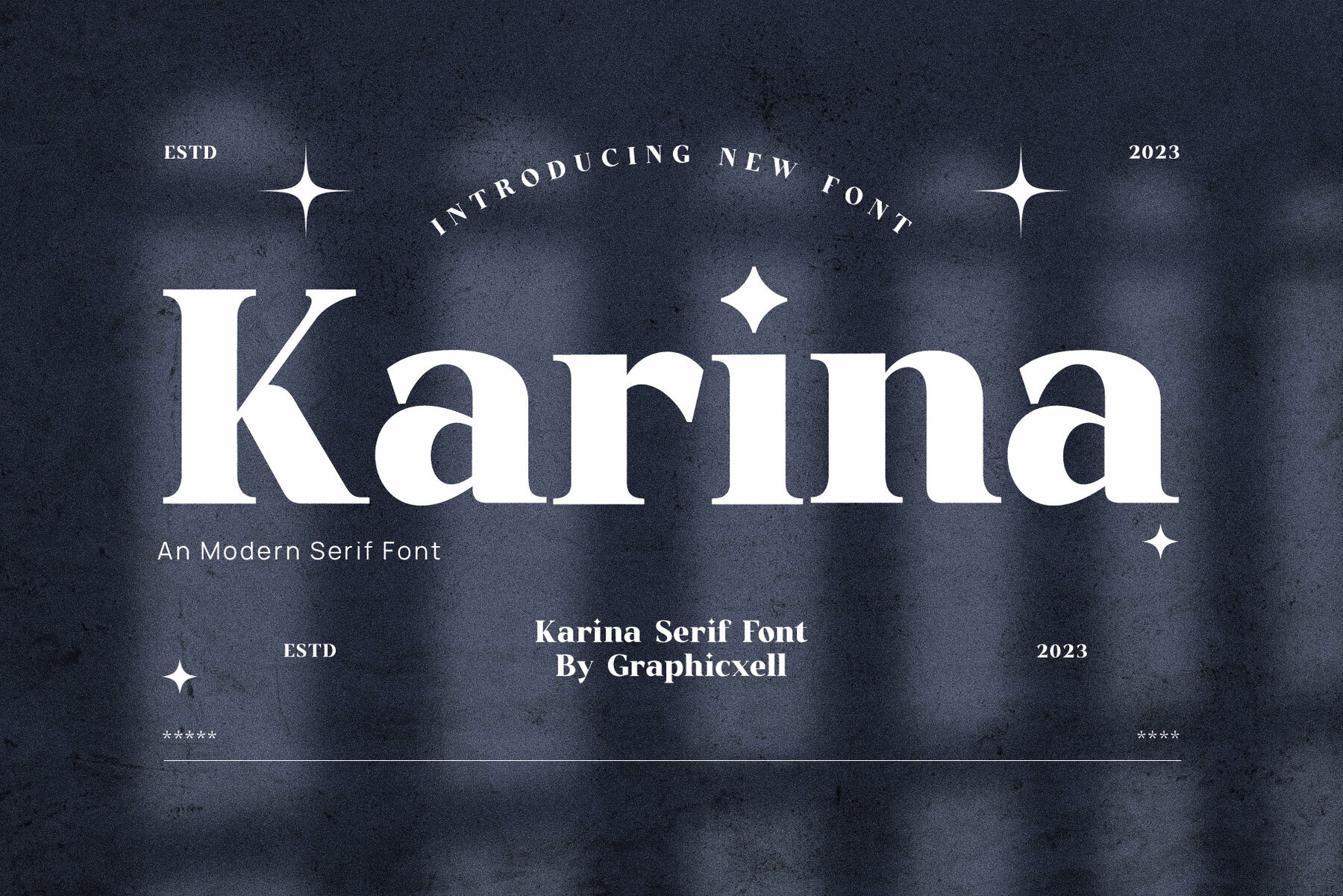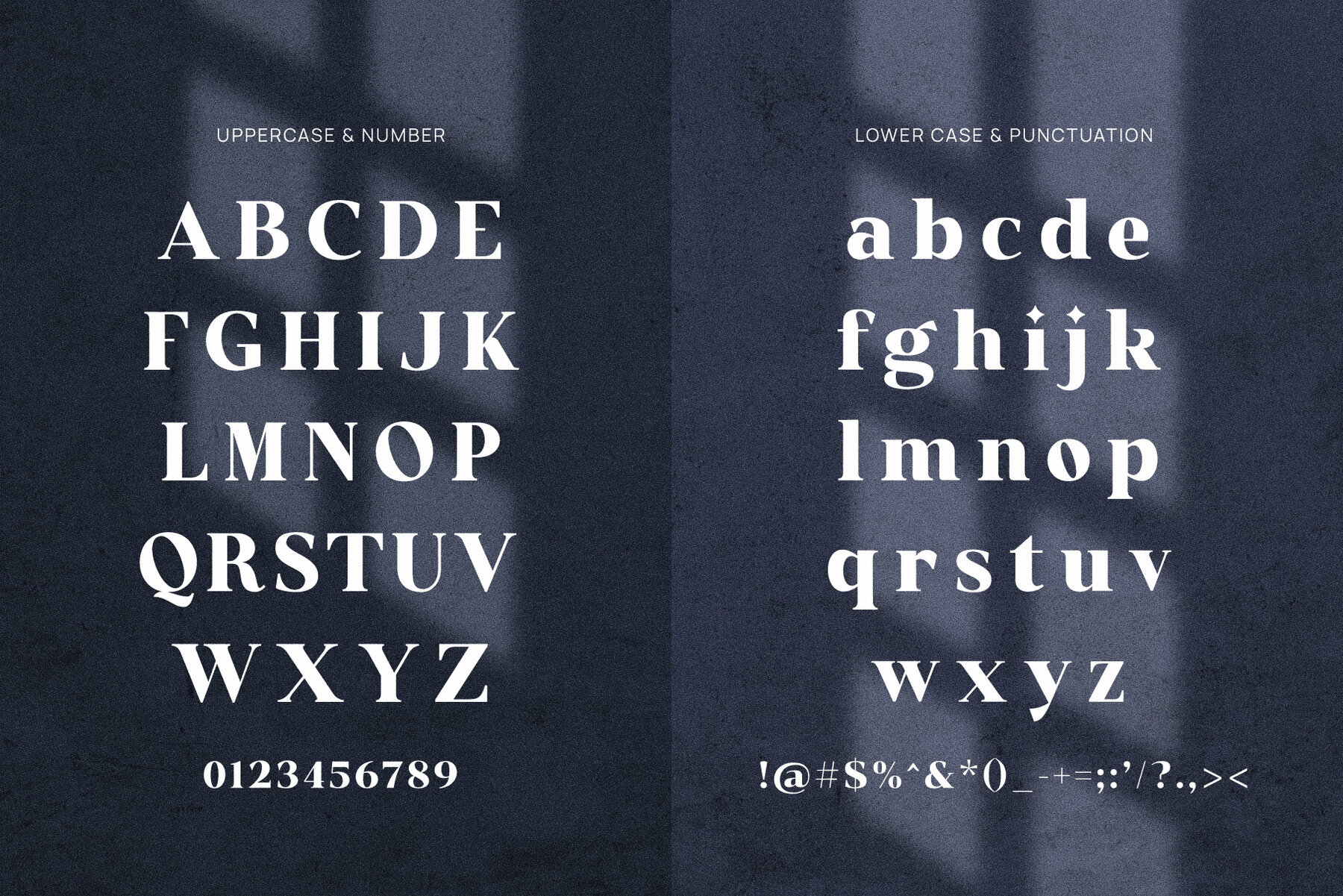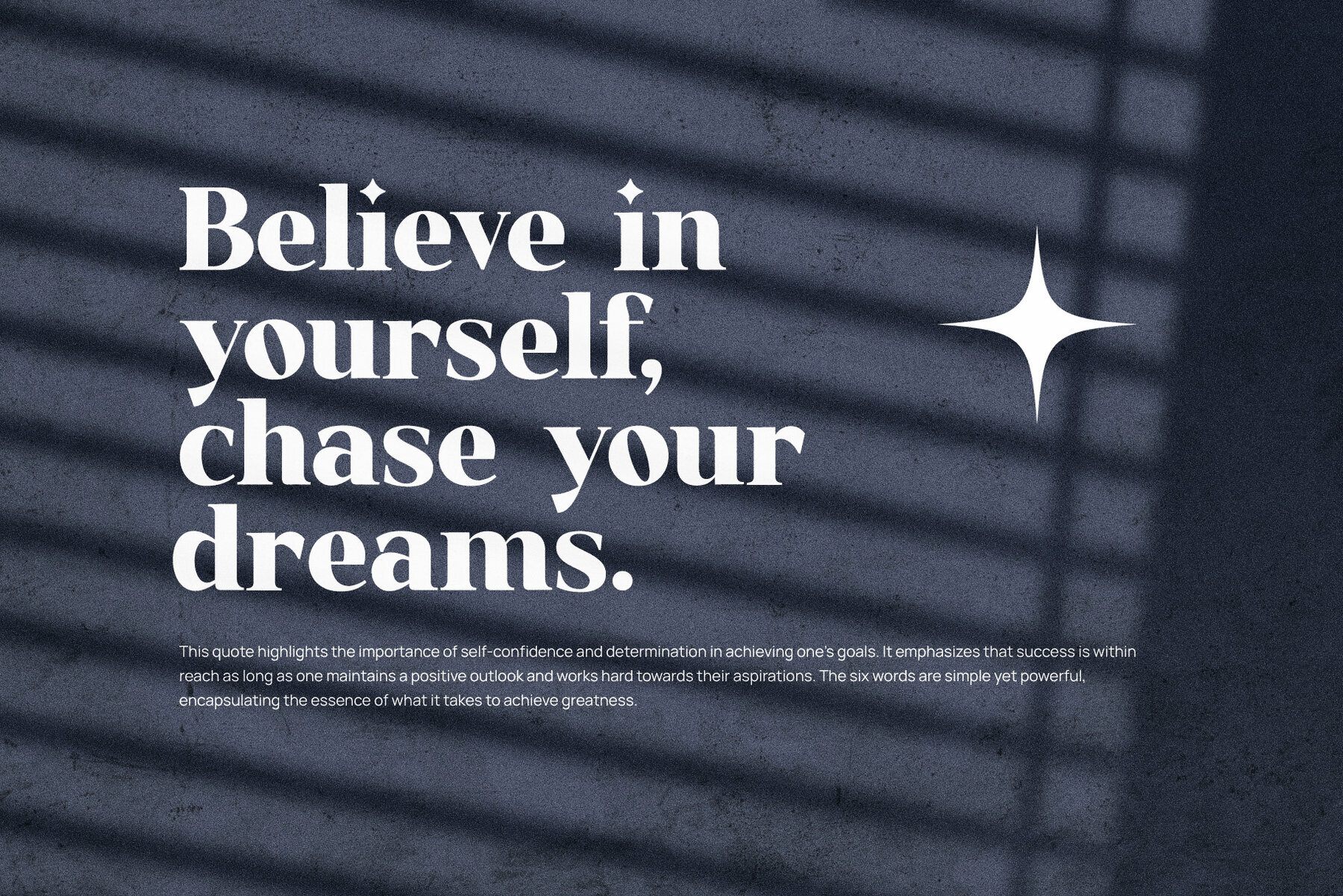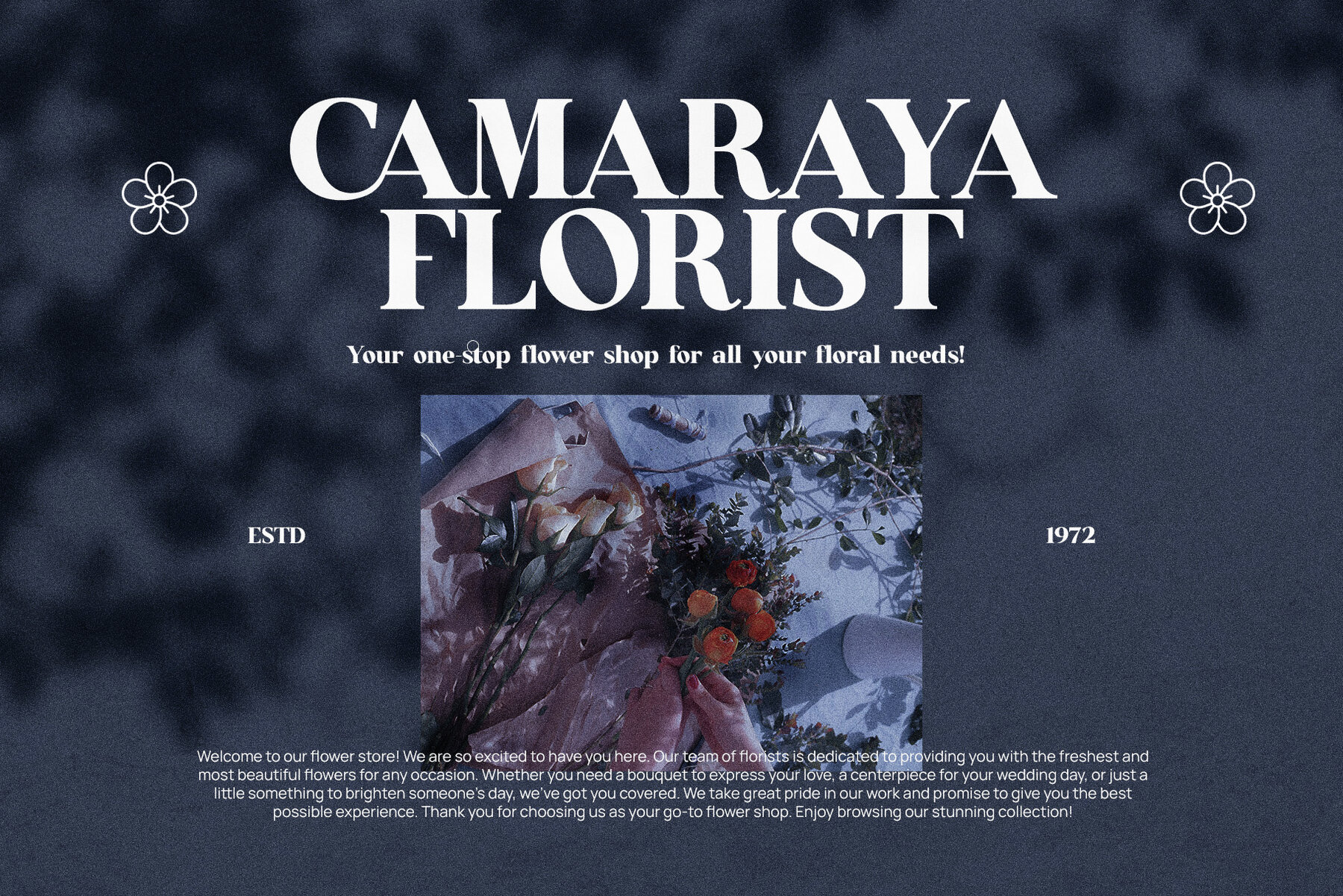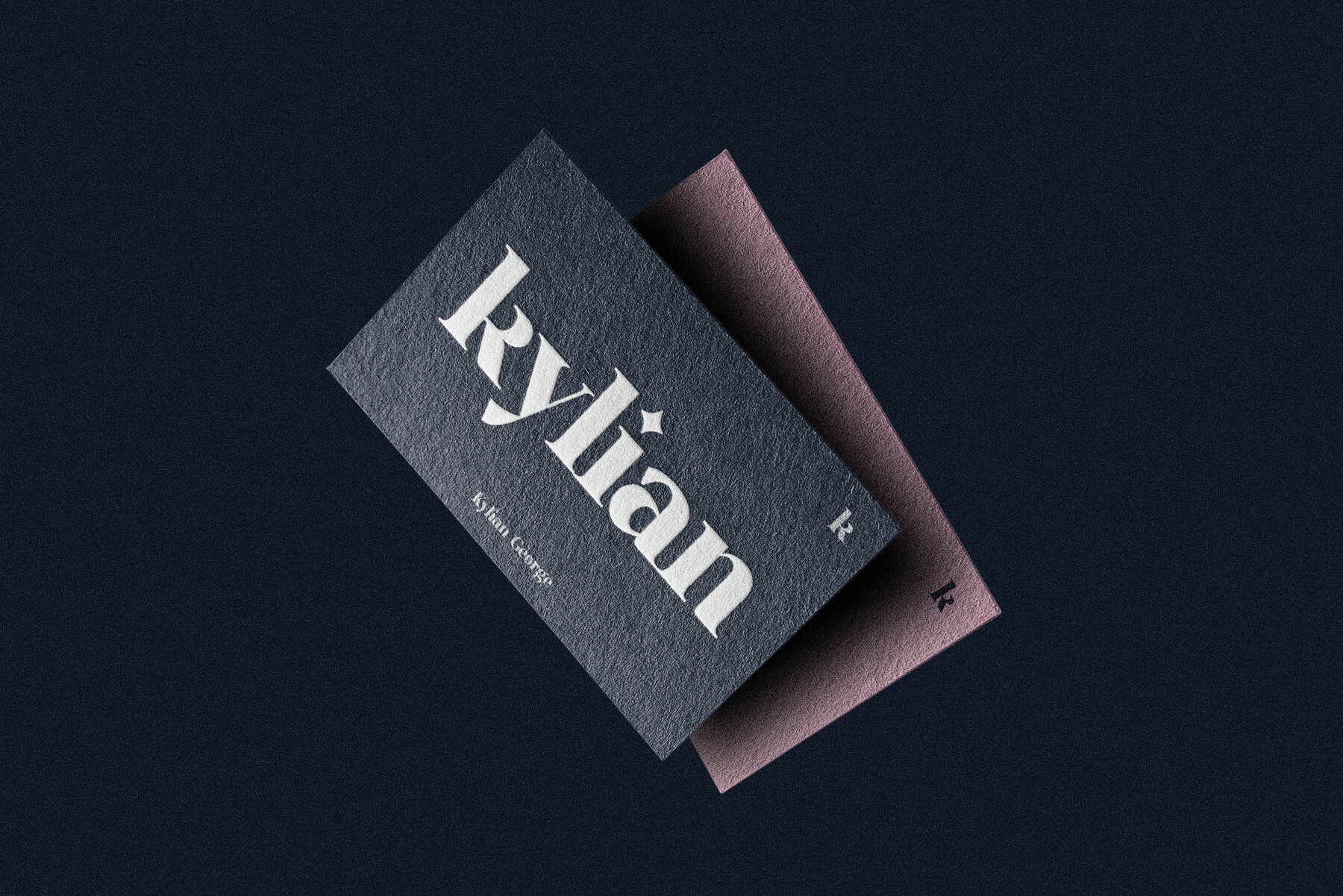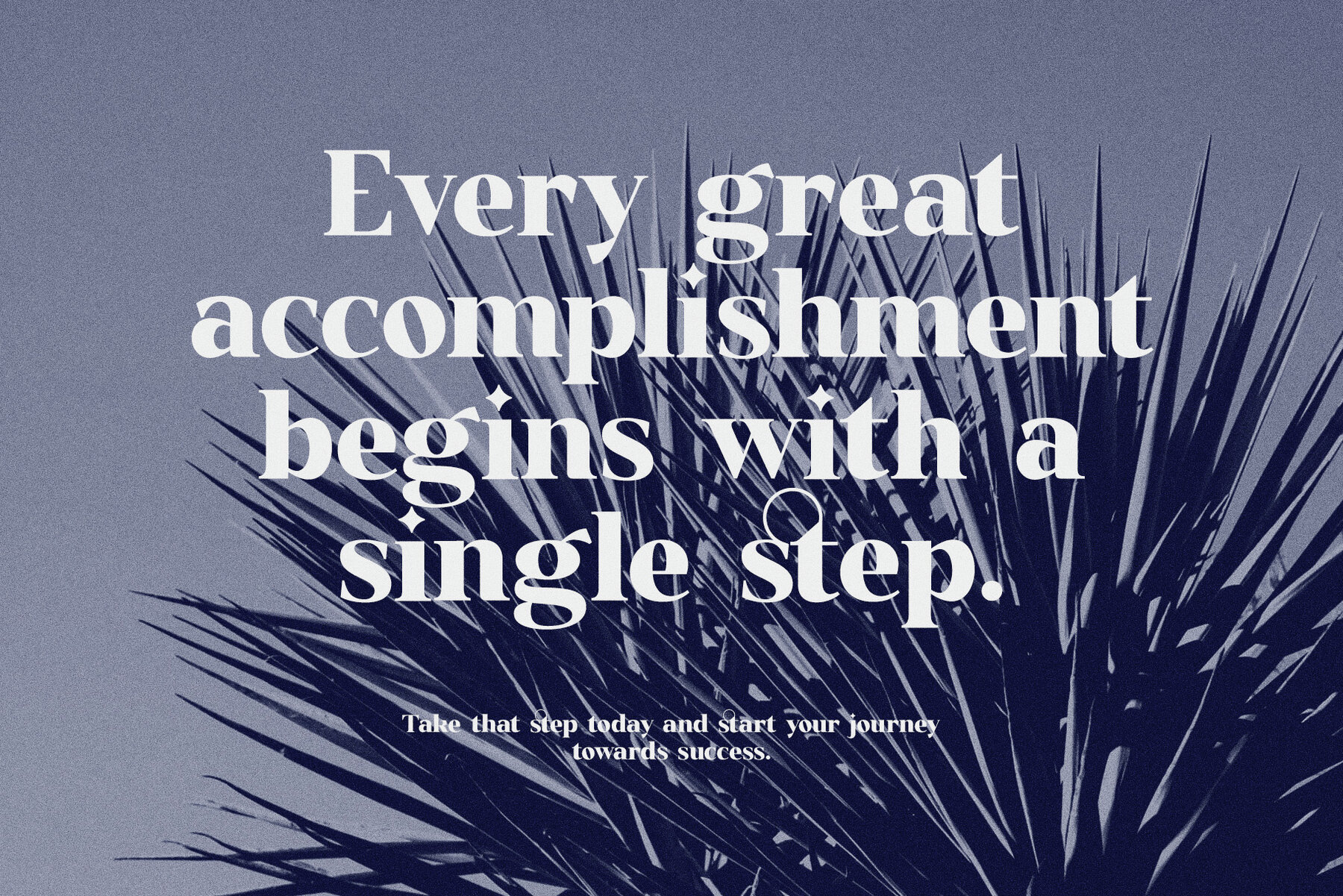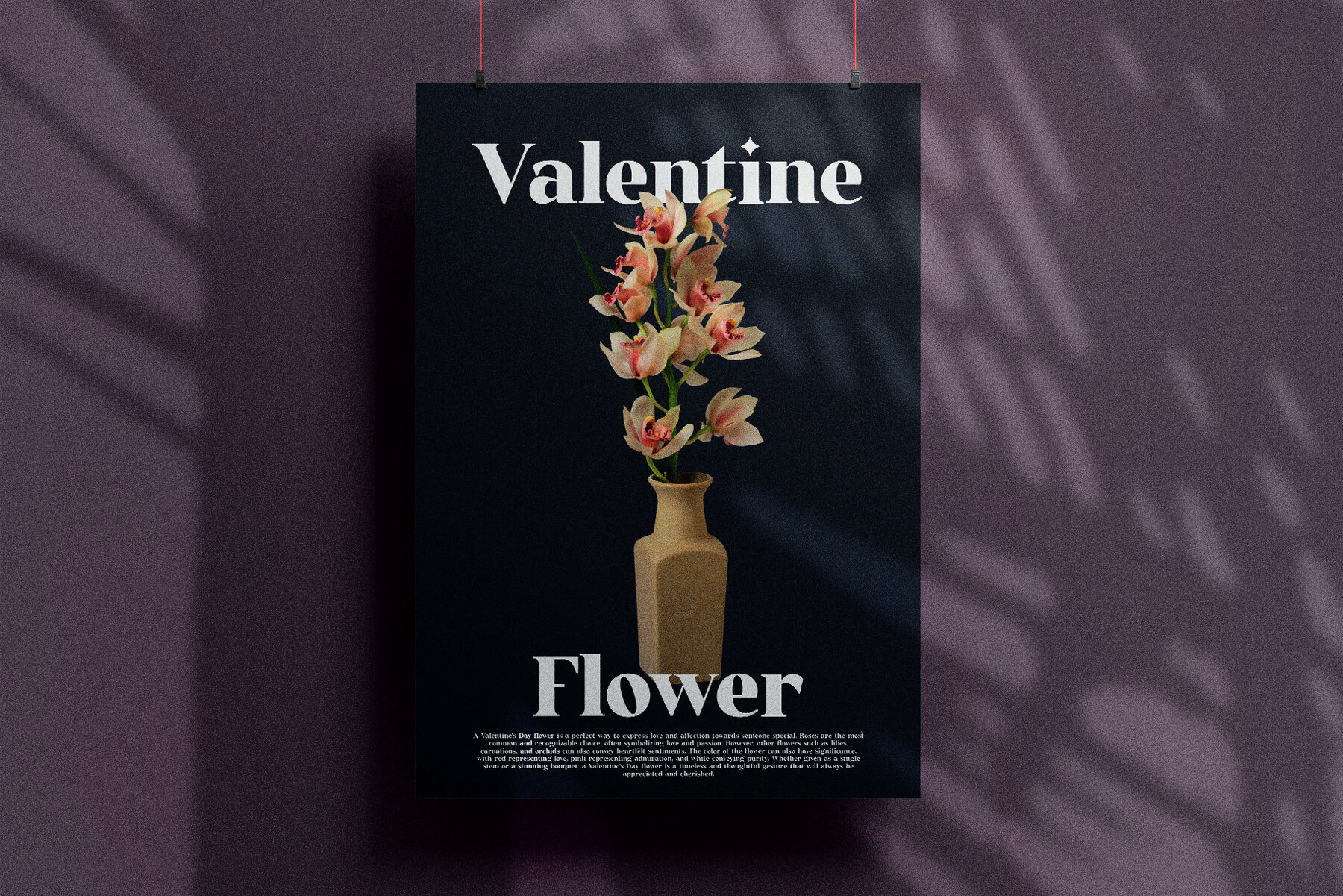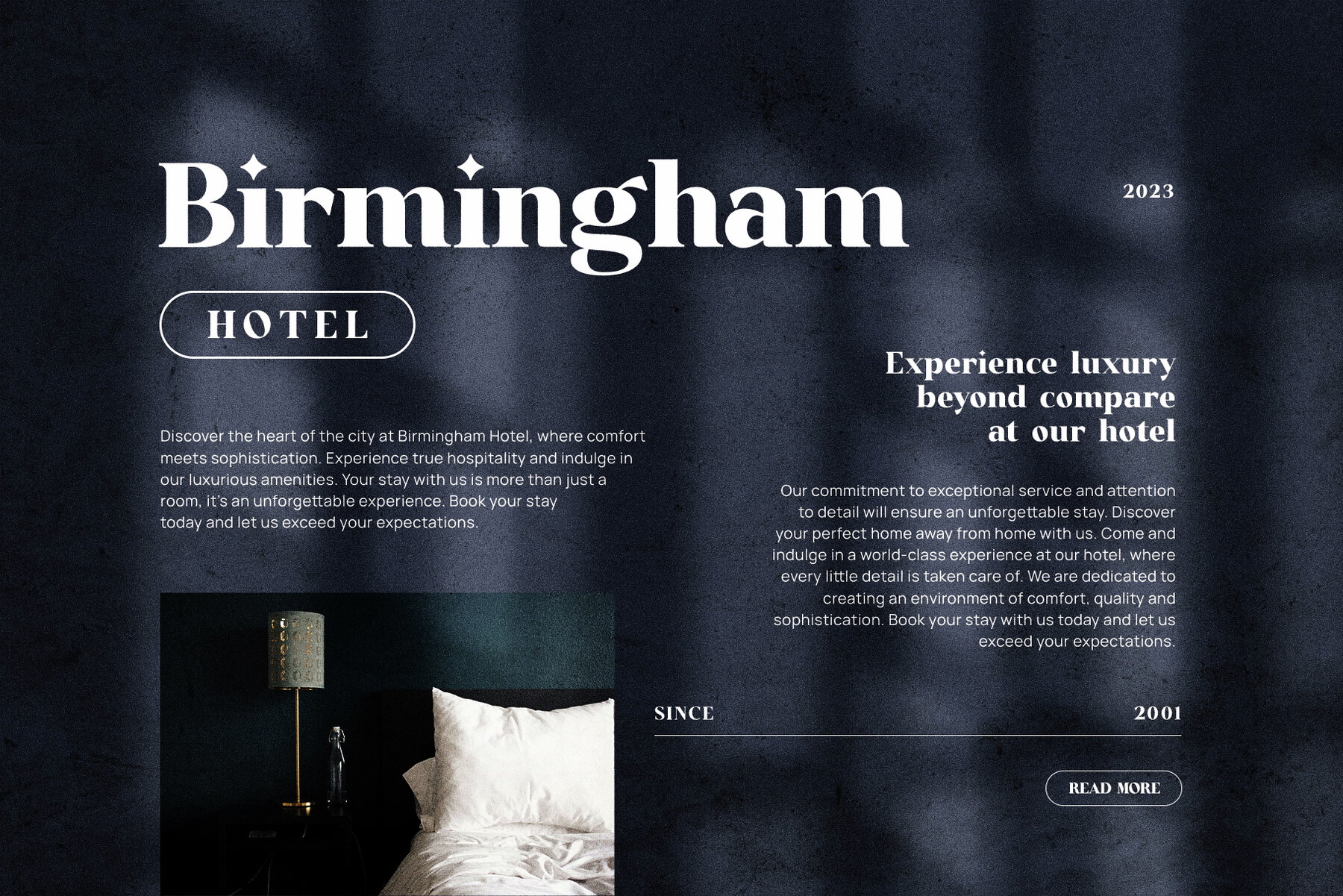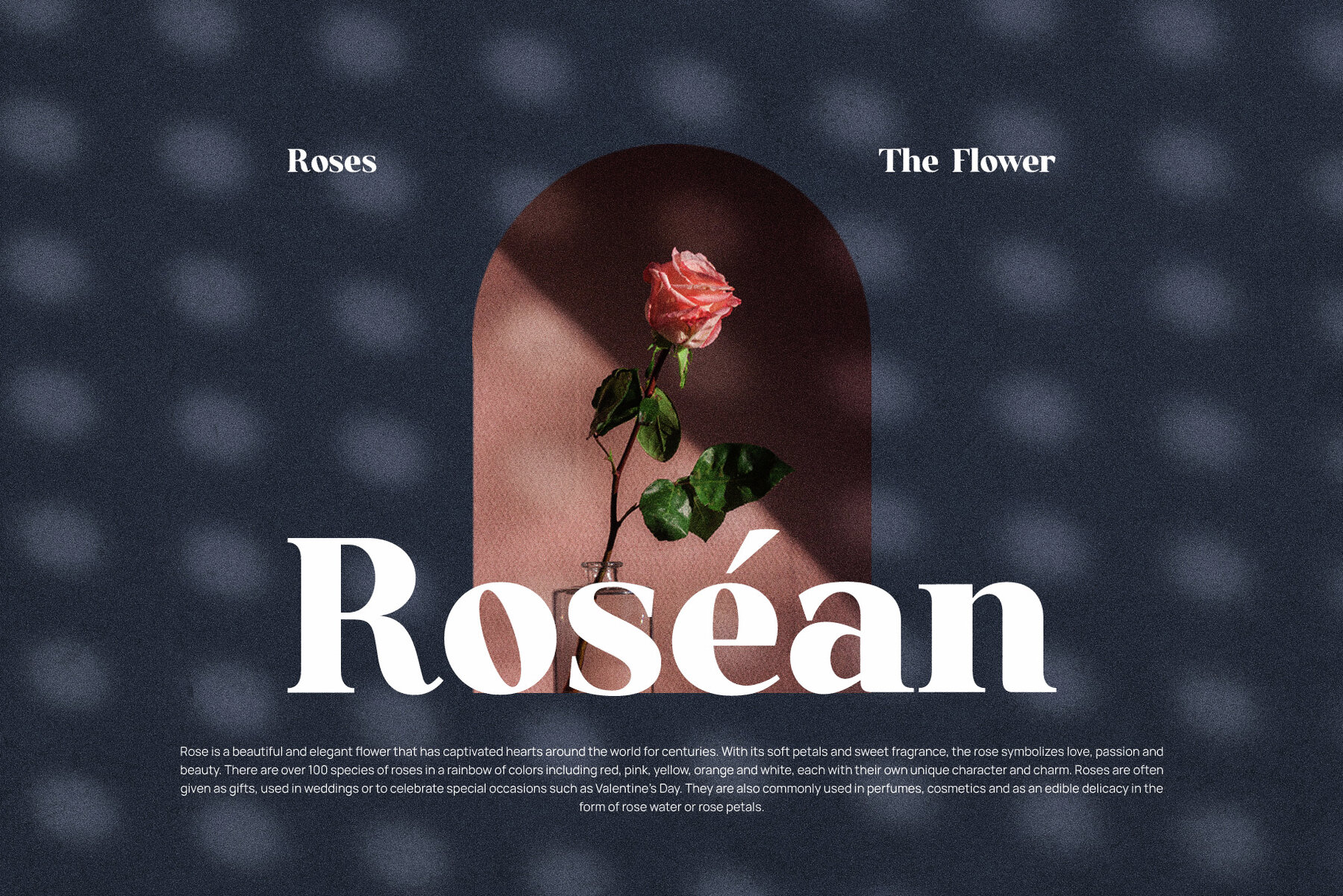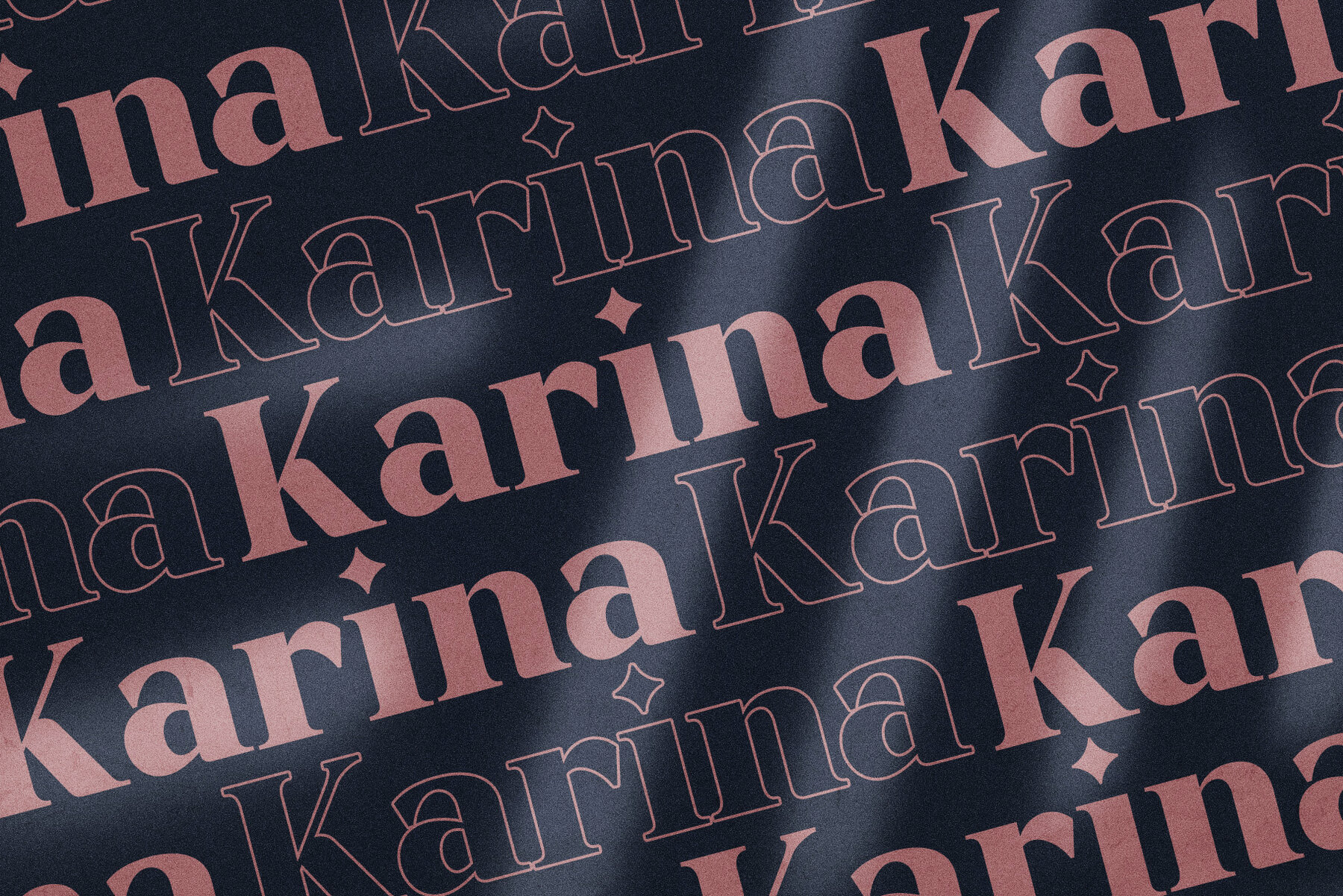
Karina Font
Karina Regular
Karina is a distinct and elegant serif font, perfect for branding and logo design. Its combination of classic and modern styles makes it ideal for a wide array of applications, including branding projects, wedding designs, social media posts, and more. With its high readability, Karina is a reliable choice for various creative projects, from product packaging to invitations. Using professional tools like Adobe Illustrator or Adobe Photoshop is recommended for the best results. For any inquiries, feel free to reach out for assistance.Karina: An Elegant Serif Font for Sophisticated Branding